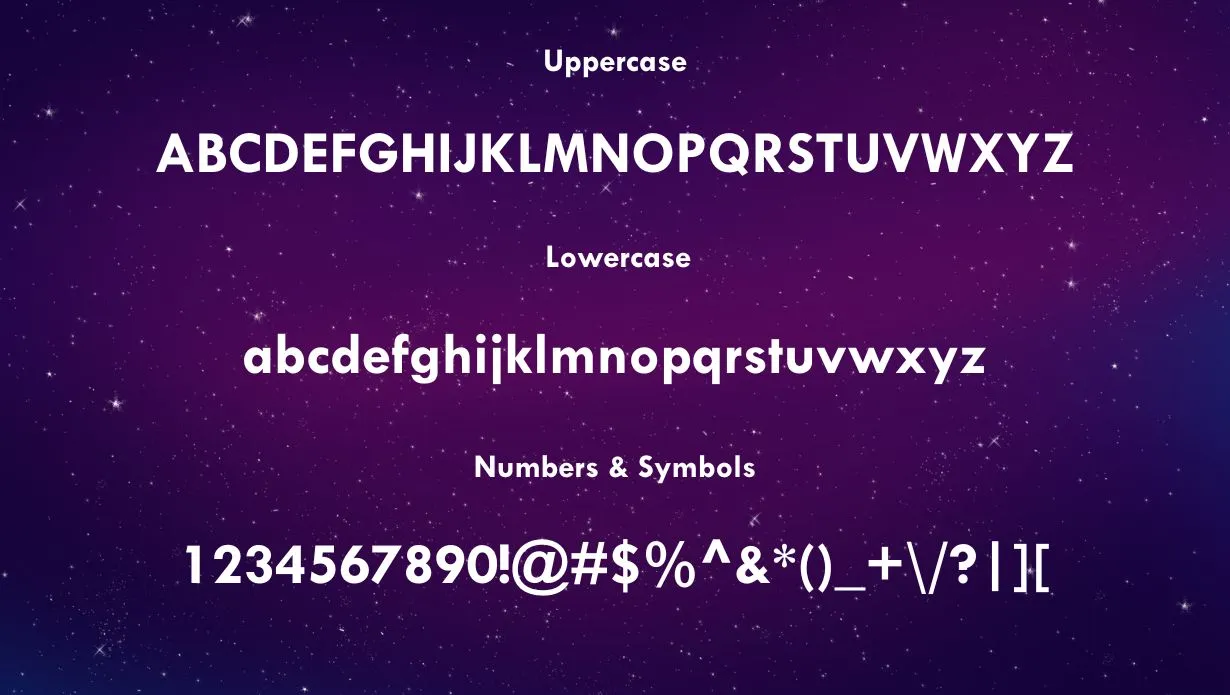
The Tw Cen MT Std font is a classic and versatile typeface, celebrated for its straightforward and clean design. Its simplicity makes it a reliable choice for various applications. Whether for books, articles, or any form of written communication, this font ensures that the information is communicated clearly and effectively.
Its legibility and unadorned style make it an excellent choice for conveying messages across different media, ensuring a seamless and readable experience for the audience.
| Name | Tw Cen MT Std Font |
| Designer | Sol Hess |